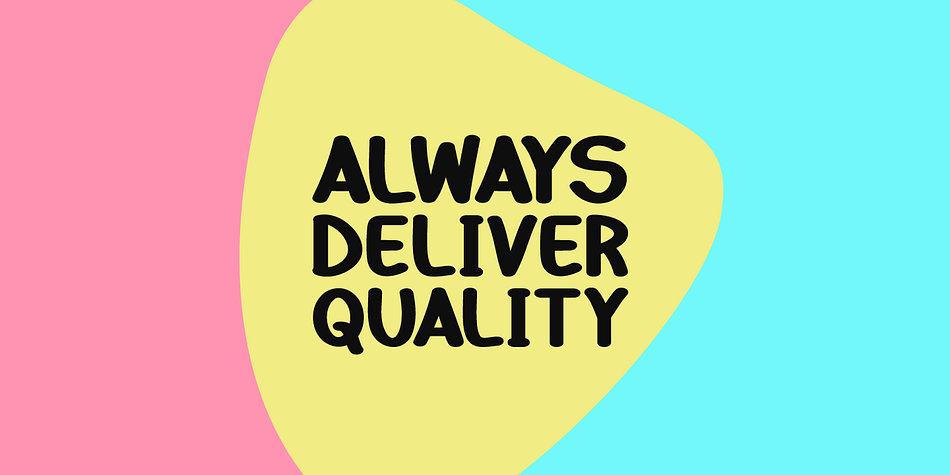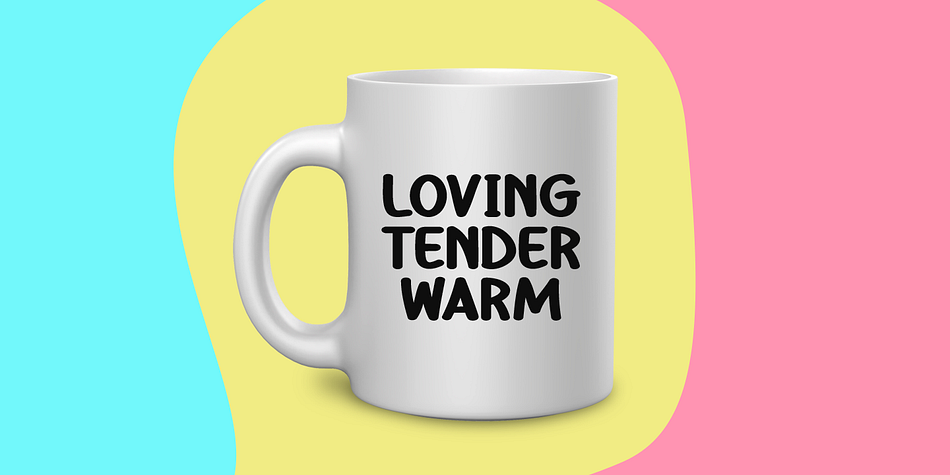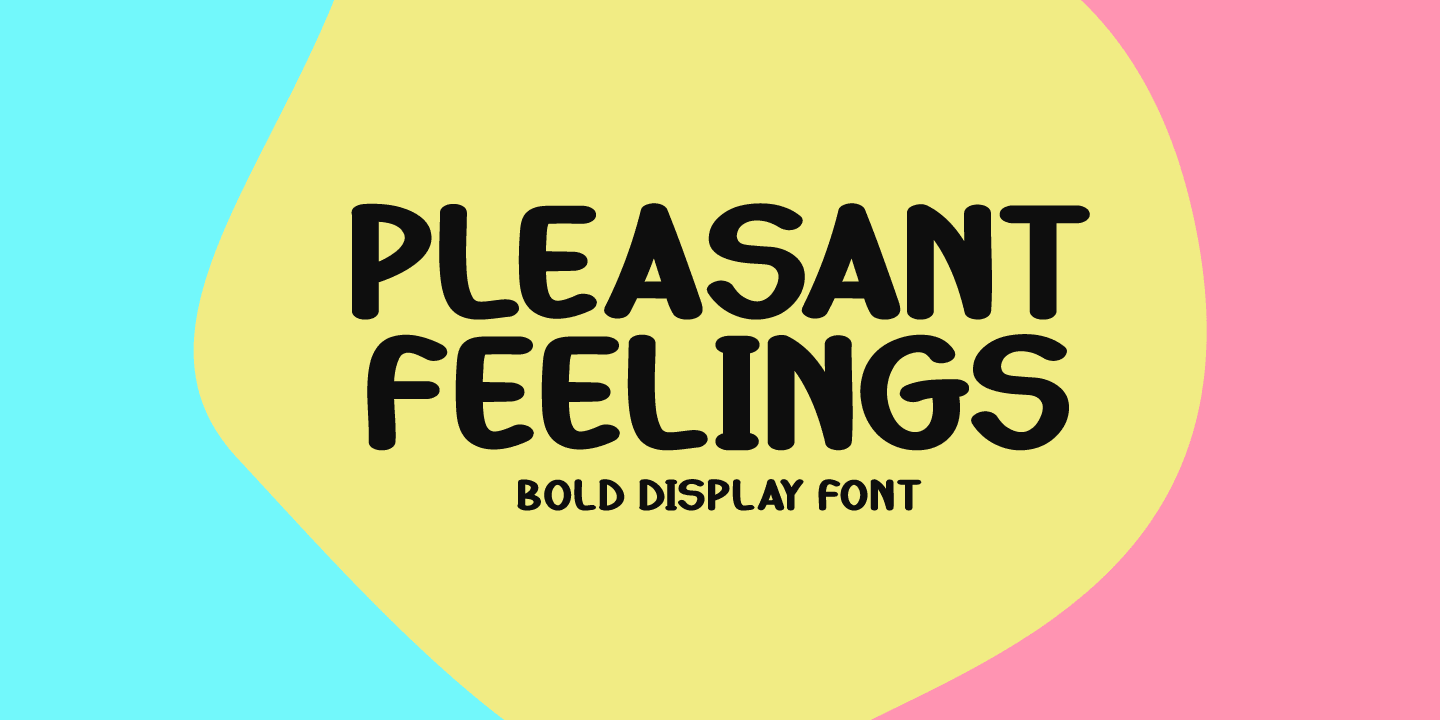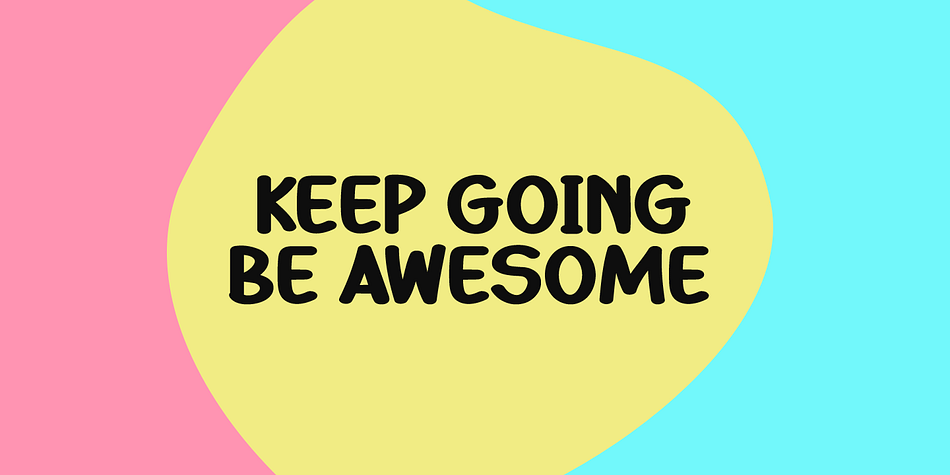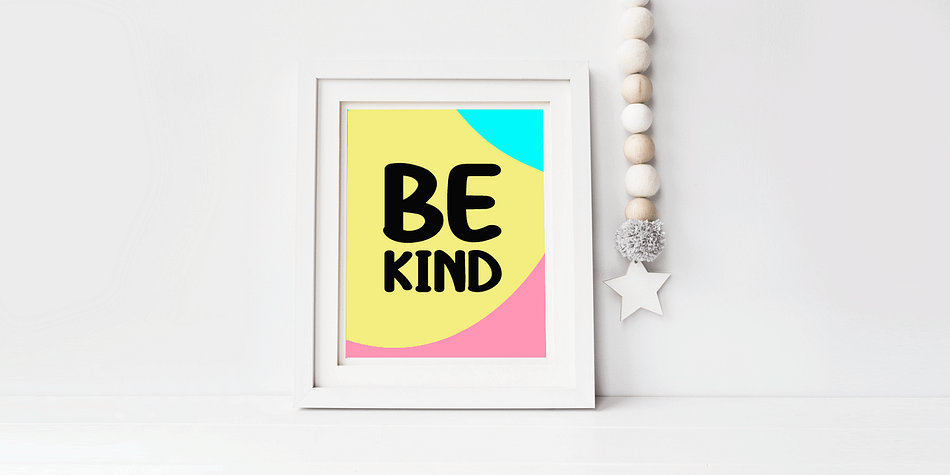
PLEASANT FEELINGS
Designed by Md. Shohail Bhuiyan, Pleasant Feelings is a hand display font family published by Seemly Fonts.
Pleasant Feelings is a simple and friendly display font, featuring the perfect amount of trendiness. This original look will appeal to a wide range of crafty ideas, from letterheads and titles to stationery.